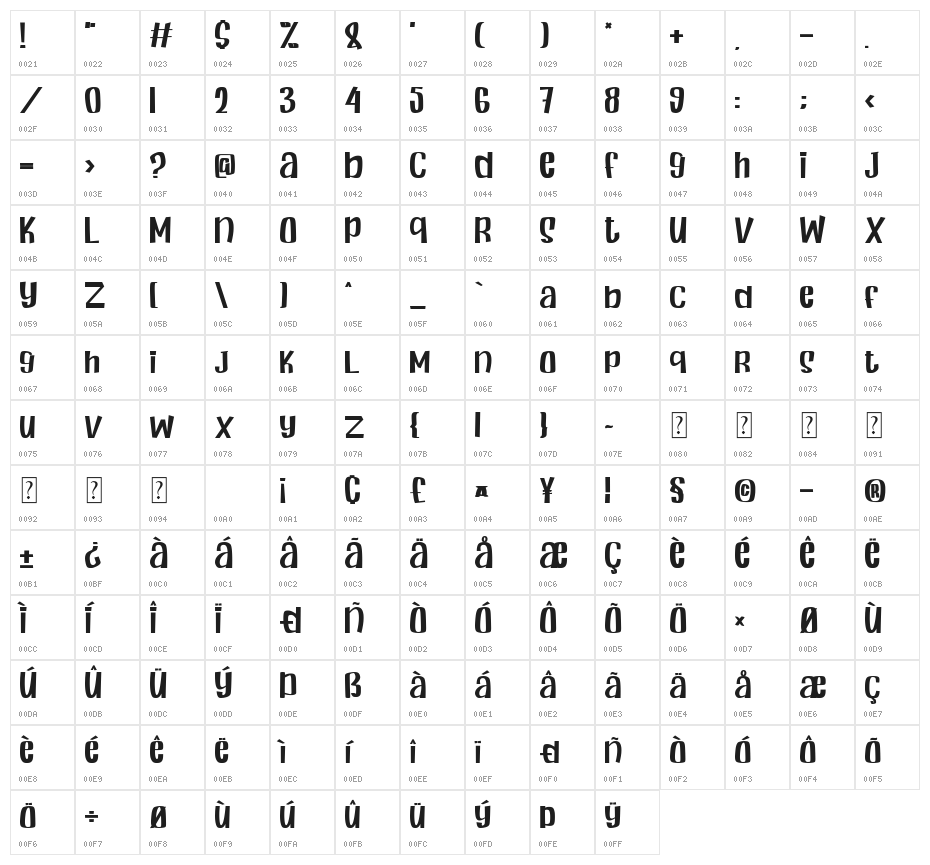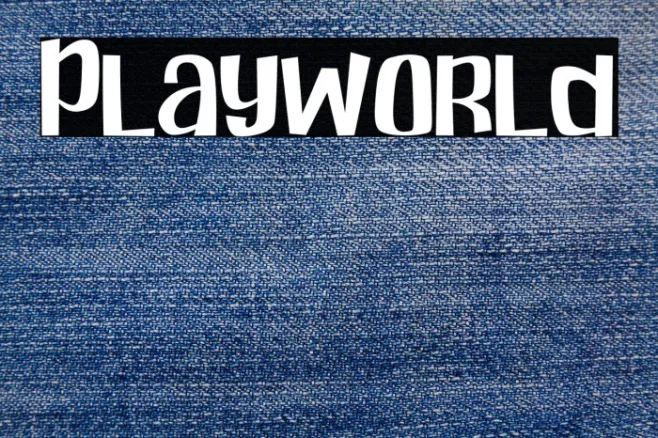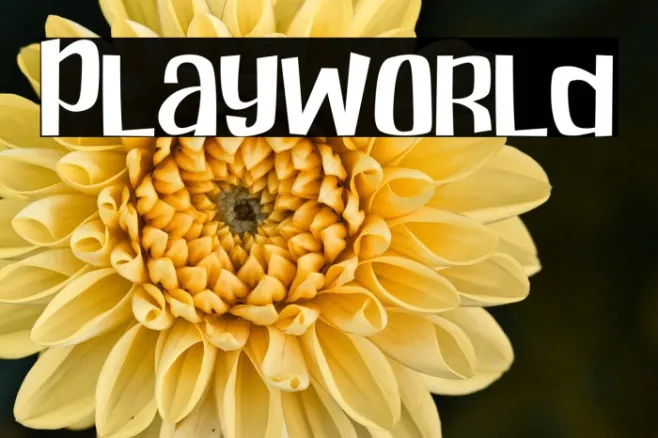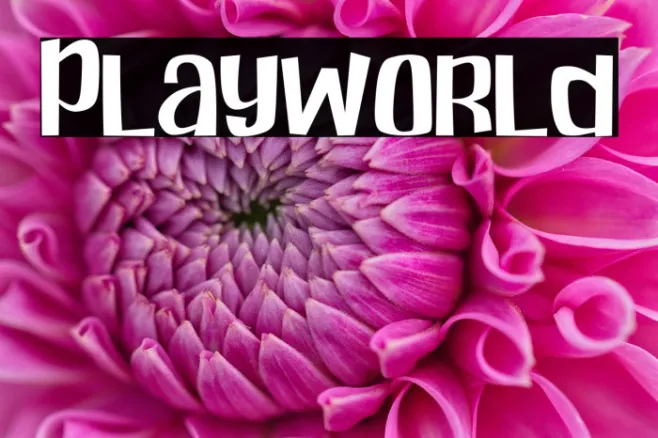
Playworld Font
Playworld Description
This font features a playful and whimsical style with bold, rounded characters that convey a sense of fun and creativity. The letters have a slightly irregular shape, adding to the casual and informal feel. The uppercase and lowercase letters maintain a consistent height, while the numbers and special characters are designed to match the overall aesthetic. The font's unique character shapes make it stand out, making it ideal for projects that require a touch of personality and flair.